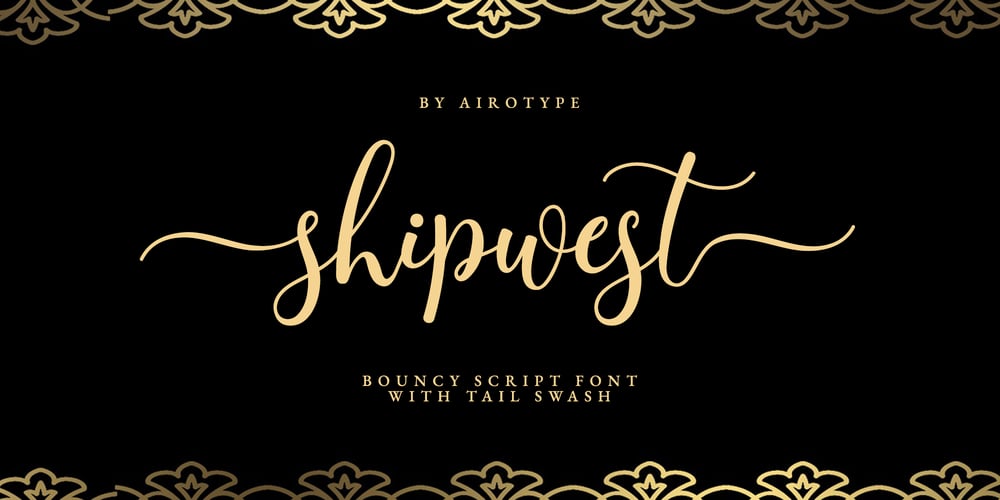
Shipwest Script Font Family was designed by Ainur Rofiq and published by Airotype. Shipwest Script contains 1 styles and family package options. Shipwest is bouncy handwritten script font. It is casual, elegant, and stylish. It has has tail swash for its front and back.Shipwest is gorgeous font for design with elegant and lovely vibes, such as wedding, invitation, stickers, sublimation, cards, birthday, t-shirt design, farmhouse design, and others.